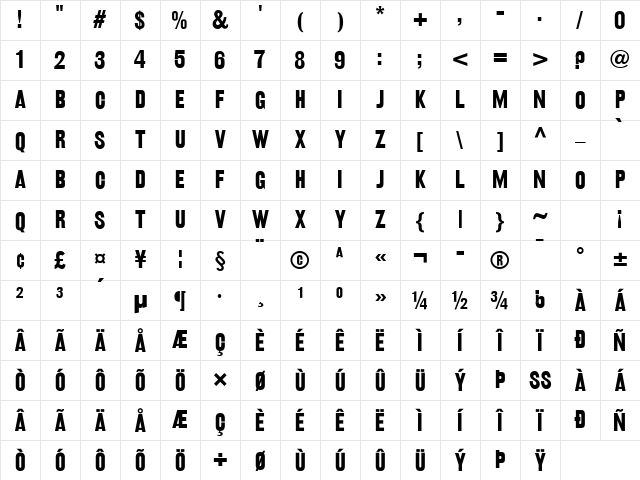
RailroadGothic Regular Free Font
RailroadGothic Regular
Design Context for RailroadGothic
RailroadGothic takes a clean, functional approach - its unadorned letterforms prioritise legibility and work reliably across screen and print environments.
Font Pairing: Works well alongside a characterful serif or display font that can carry the expressive load while RailroadGothic handles the functional copy.
Pro Tip: Use RailroadGothic for UI labels, navigation, and short-form body copy where clean legibility is the priority.